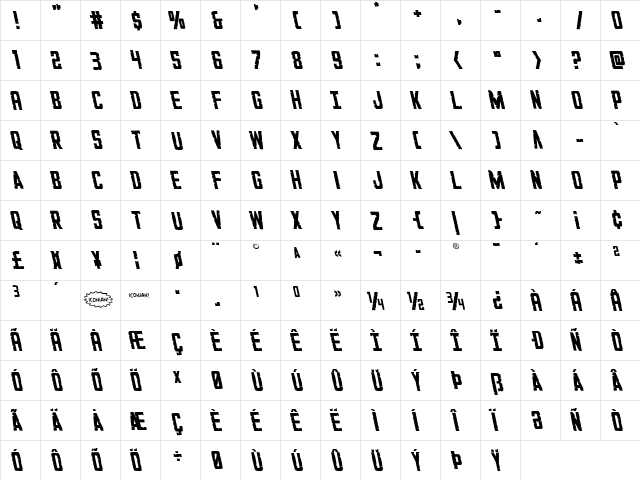
G.I. Incognito Leftalic Italic
Design Context for G.I. Incognito Leftalic Typeface
G.I. Incognito Leftalic is a composed and adaptable typeface that performs quietly and consistently across a wide range of design contexts. The slanted form adds forward momentum and visual energy.
Pro Tip: Use G.I. Incognito Leftalic for emphasis, pull quotes, and subheadings where its slanted energy can add rhythm to the layout.